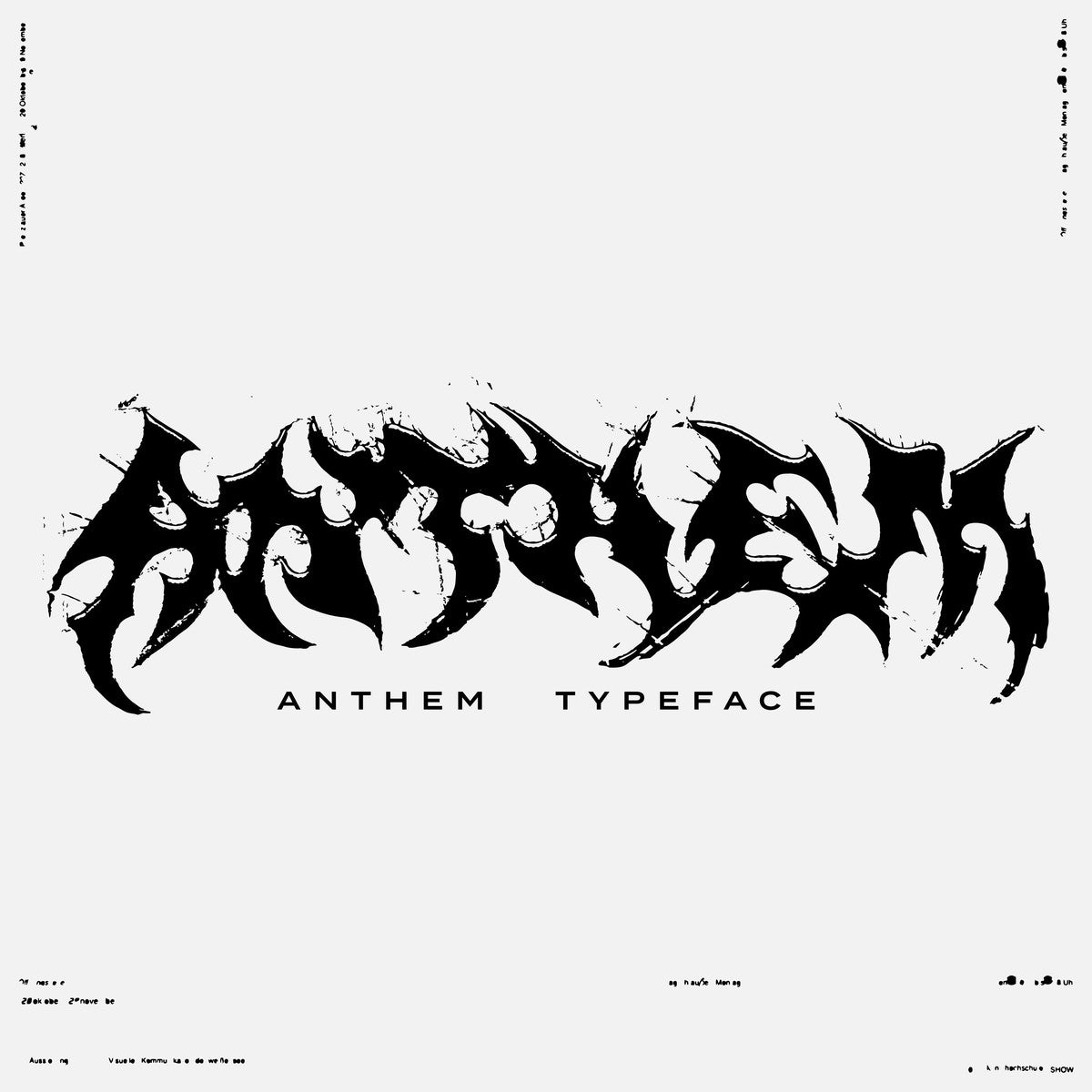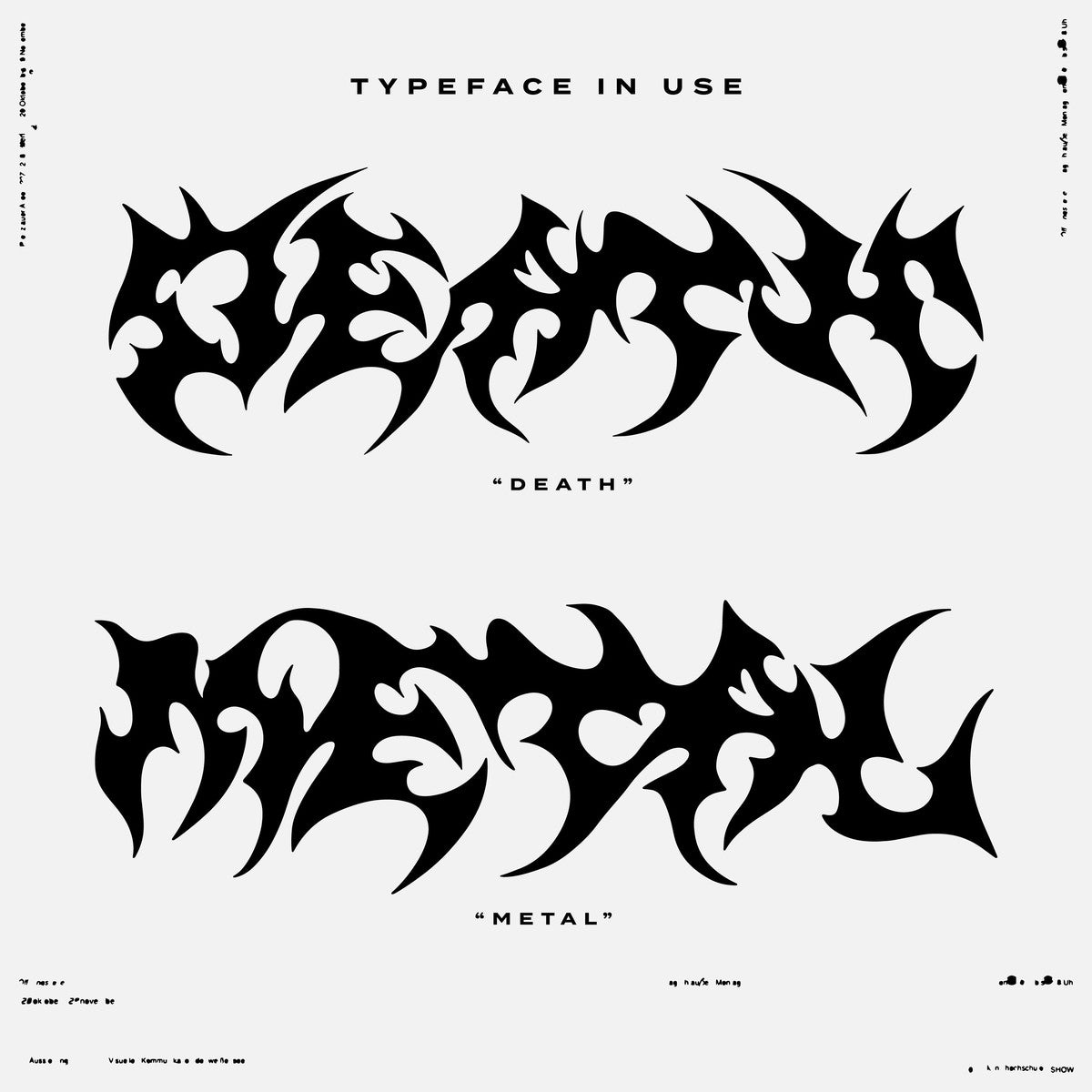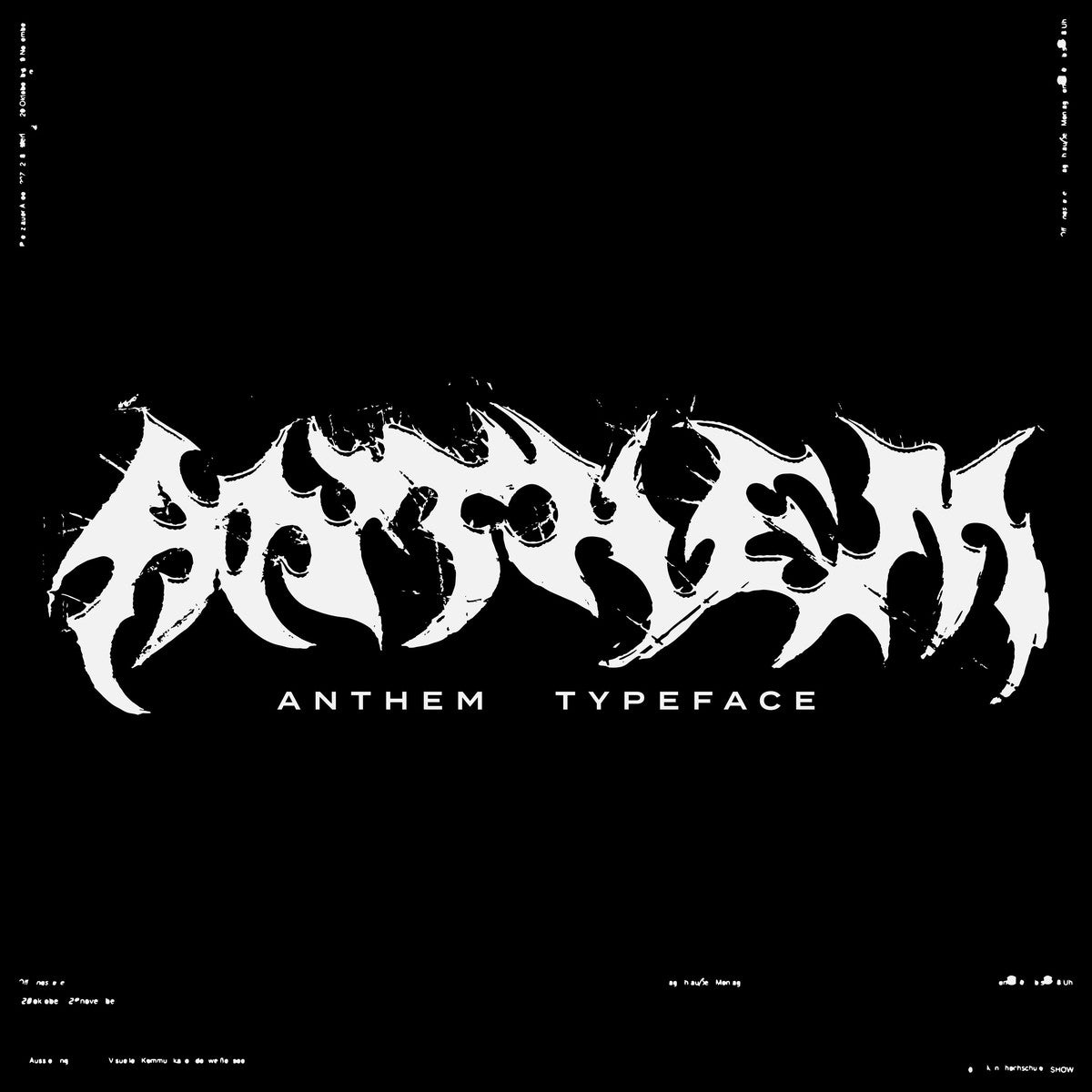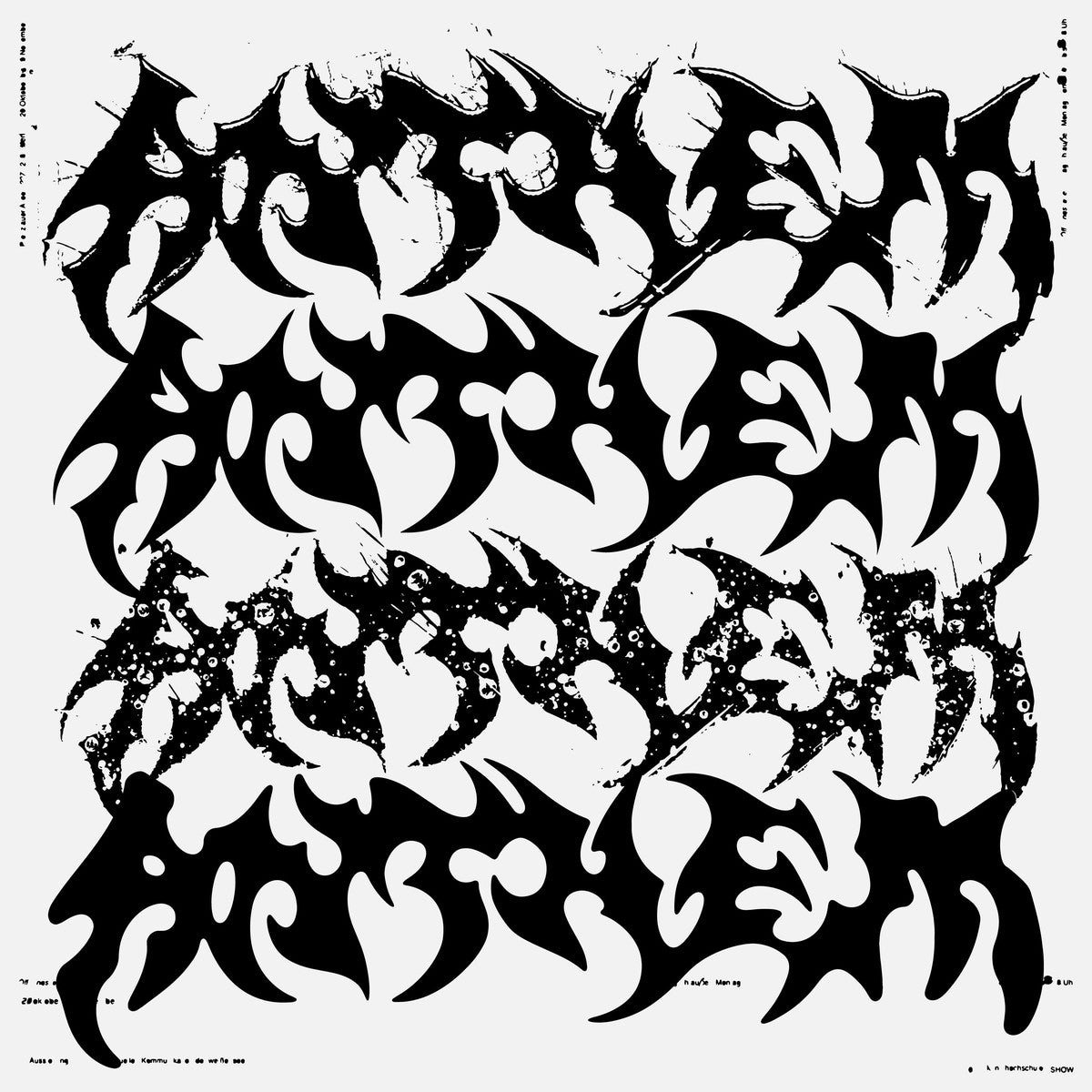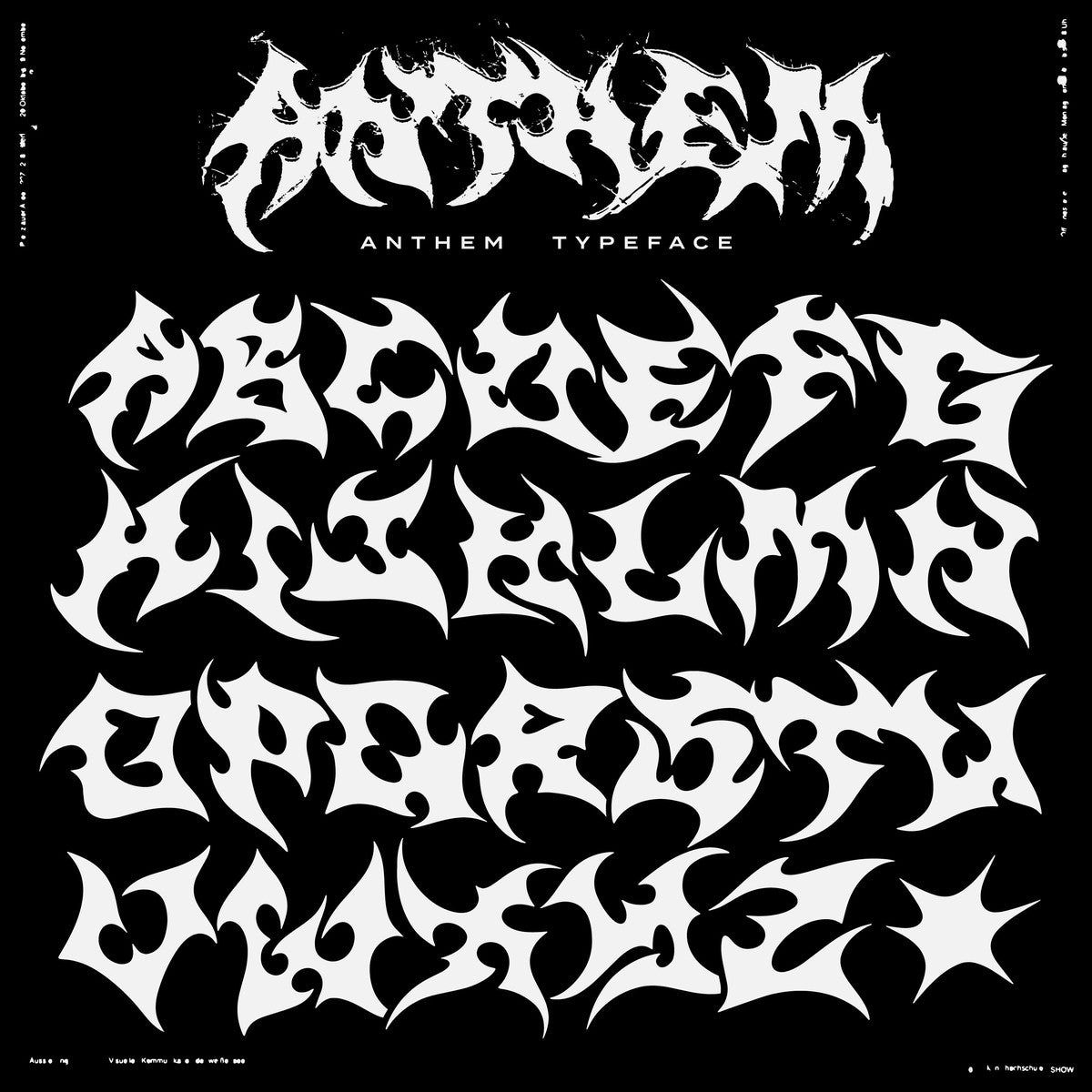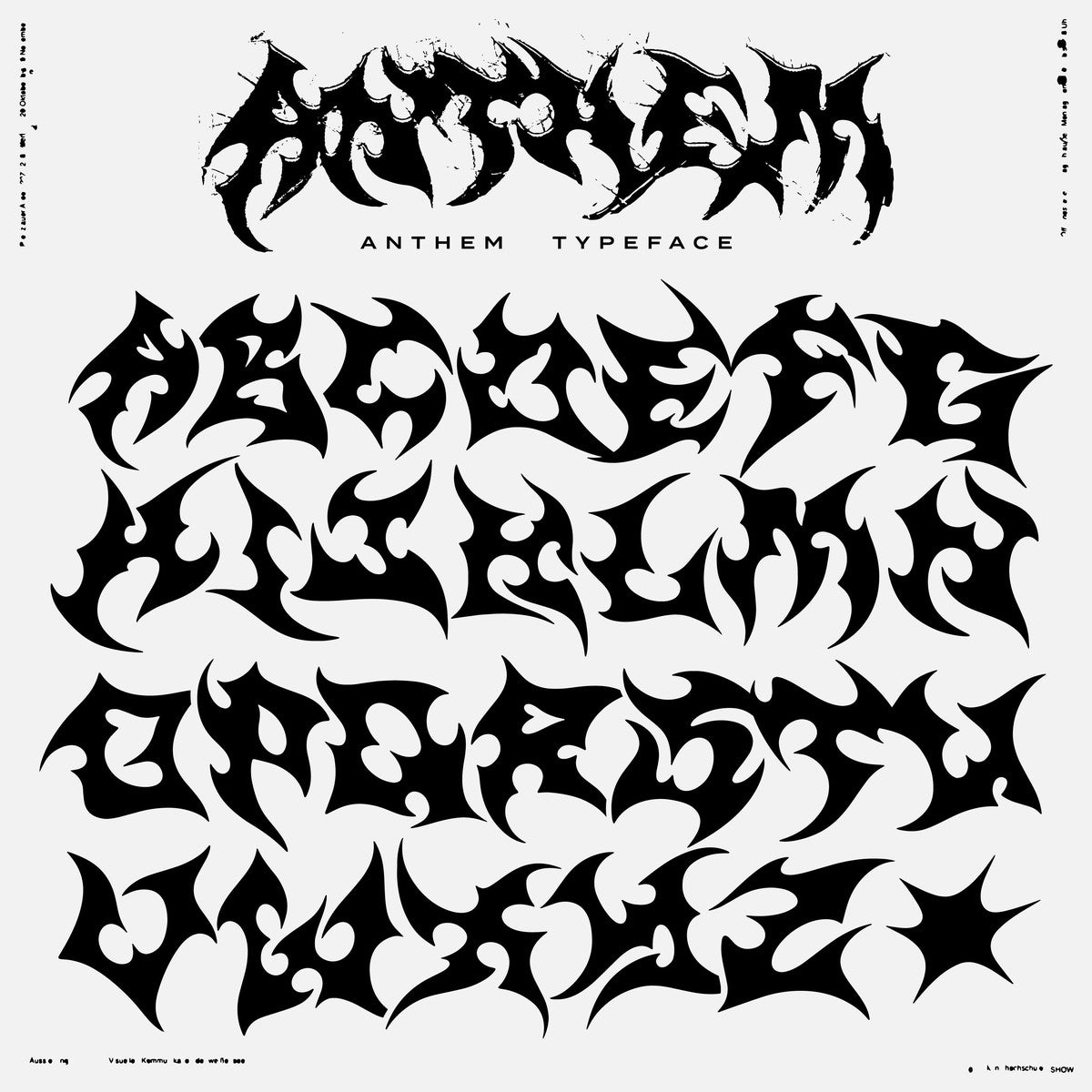
Anthem Typeface
The Anthem Typeface is a grunge, hand-drawn typeface that includes A-Z lettering styles. The compatibility of this font is not specified.
Ideal for grunge-inspired graphic design and Y2K aesthetics. Perfect for posters, album covers, and branding projects, ensuring a unique, hand-drawn character that enhances visual storytelling.